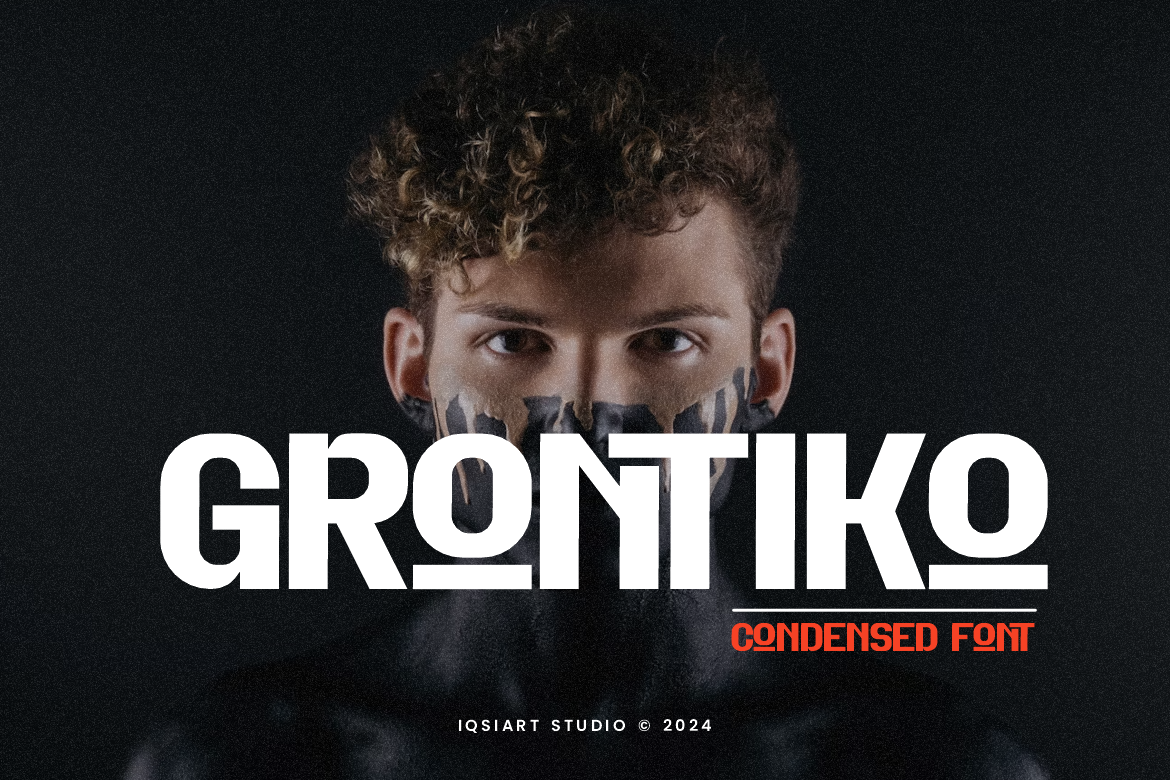
Grontiko - Condensed Font
Grontiko Font is a best and authentic display font. This font can be used for your various needs. We provide various themes and font styles. visit our profile to get a wide variety of themes and different font styles you need.